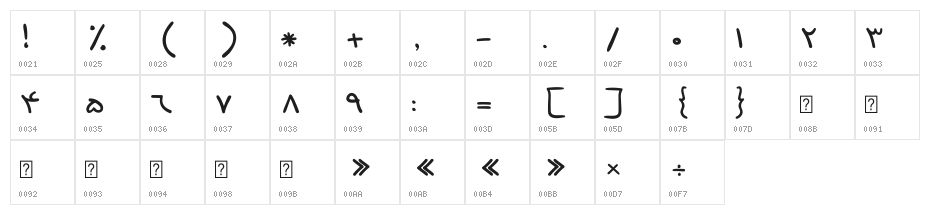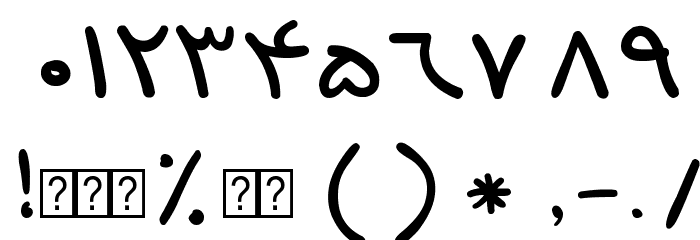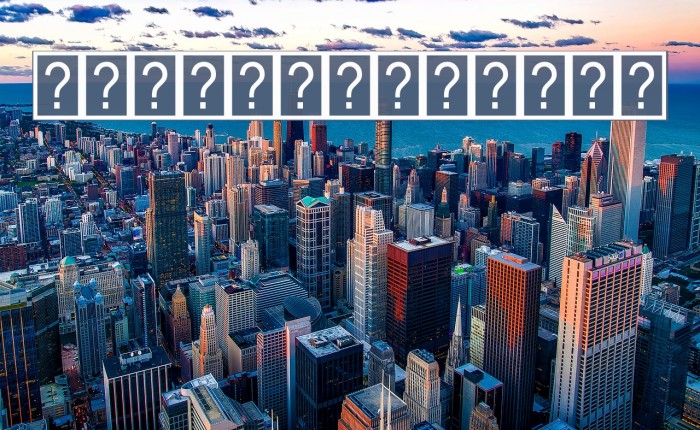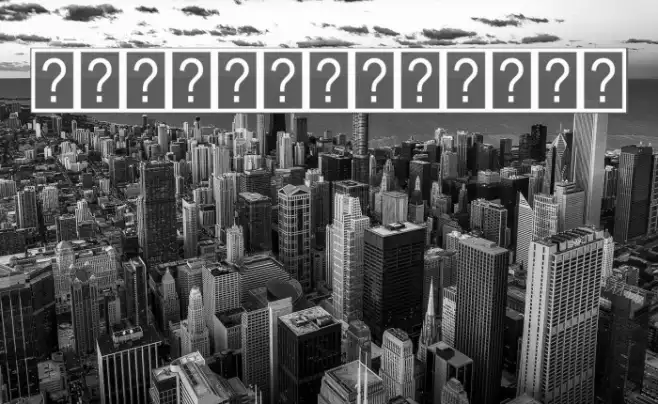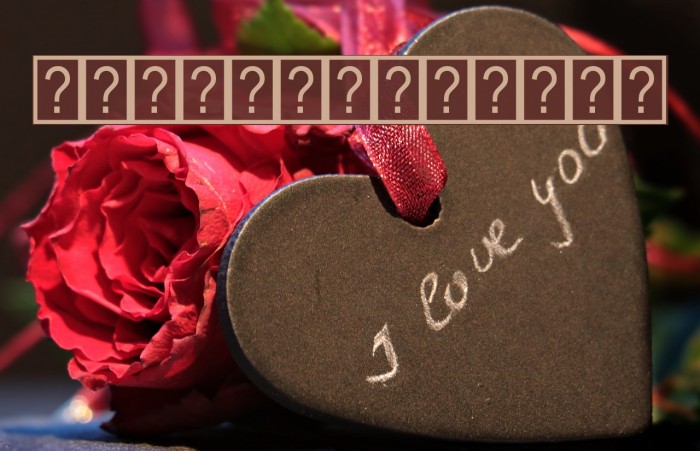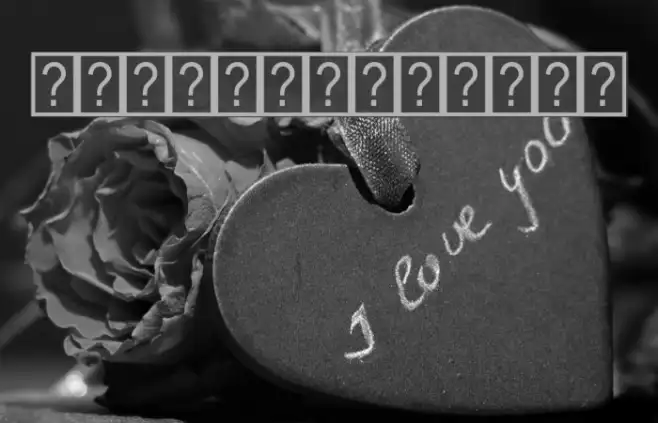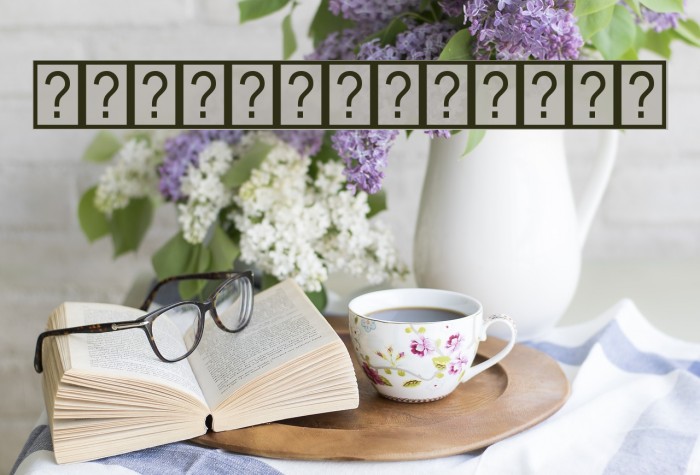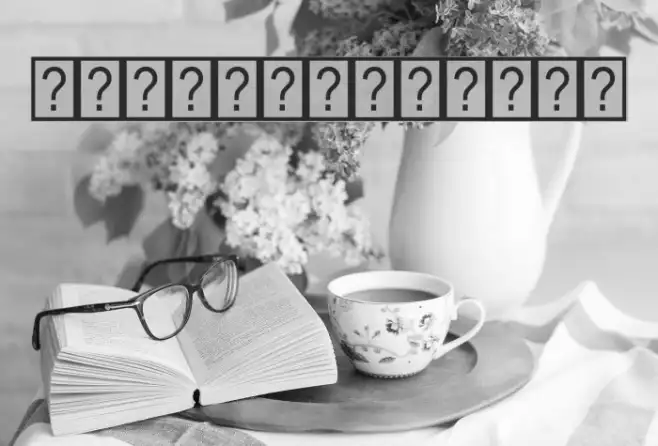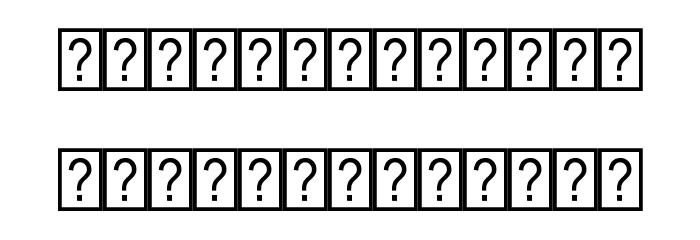
Destkhat II Font
Destkhat II Description
This font features a unique and artistic style, characterized by its flowing and dynamic strokes. The characters exhibit a handwritten quality, with a playful and informal appearance. The numerals are distinct, with a slight slant and varying stroke thickness that adds to the overall whimsical feel. The special characters are creatively designed, maintaining the font's cohesive aesthetic. This font is ideal for projects that require a personal touch or an artistic flair.
| Overall Style | Artistic, Playful |
| Proposed Projects | Greeting cards, invitations, children's books, artistic posters, and personal branding. |